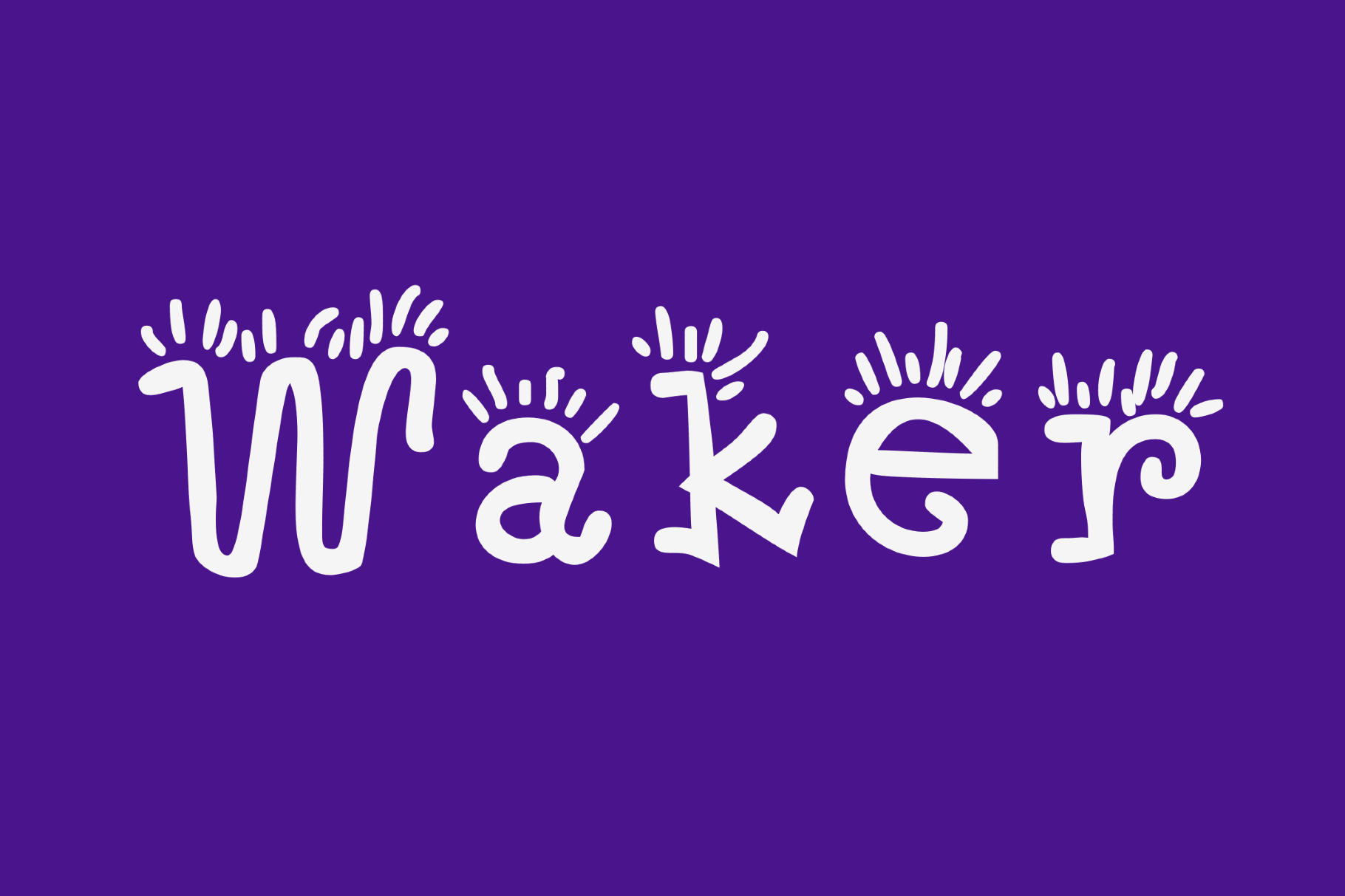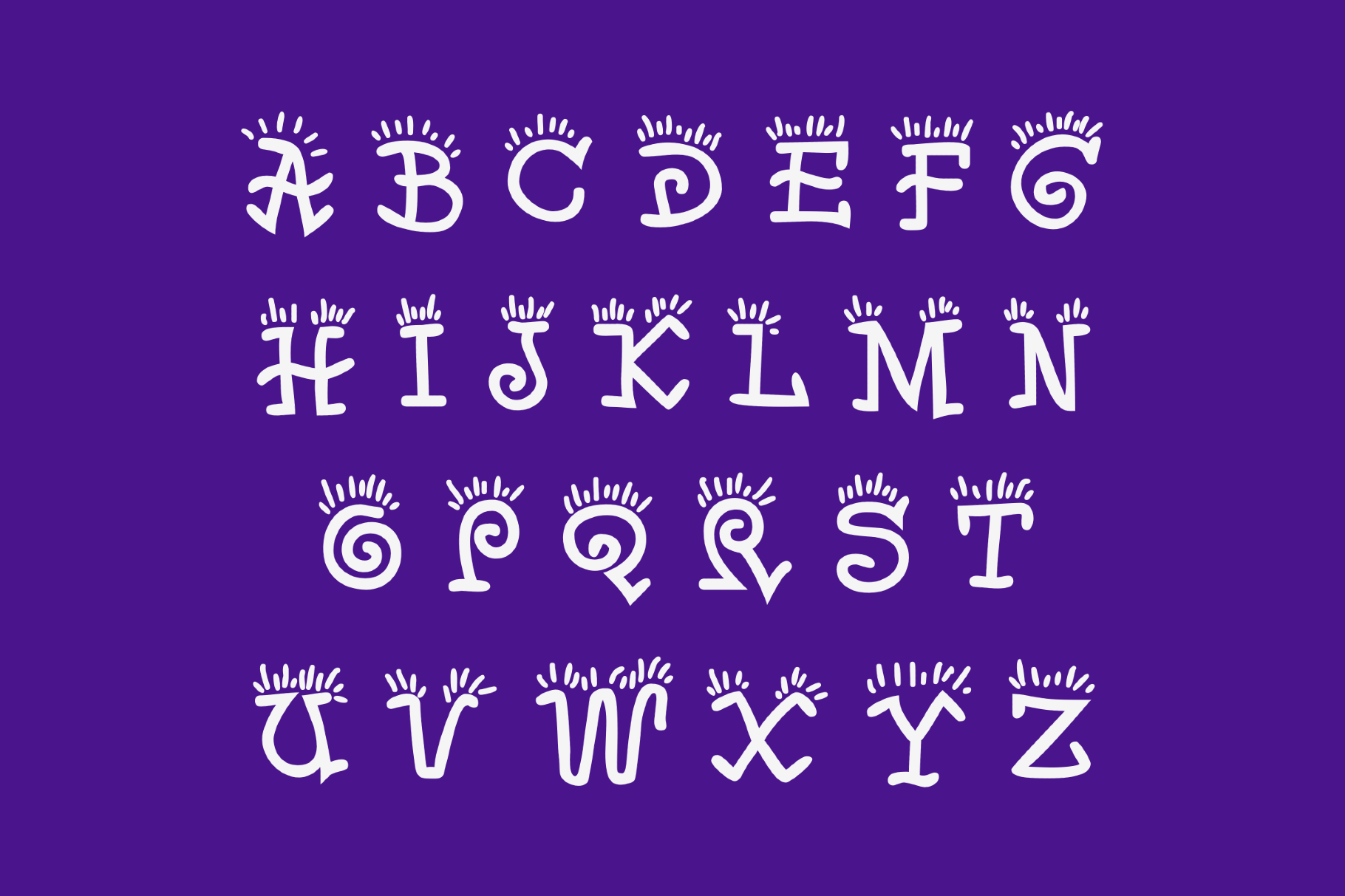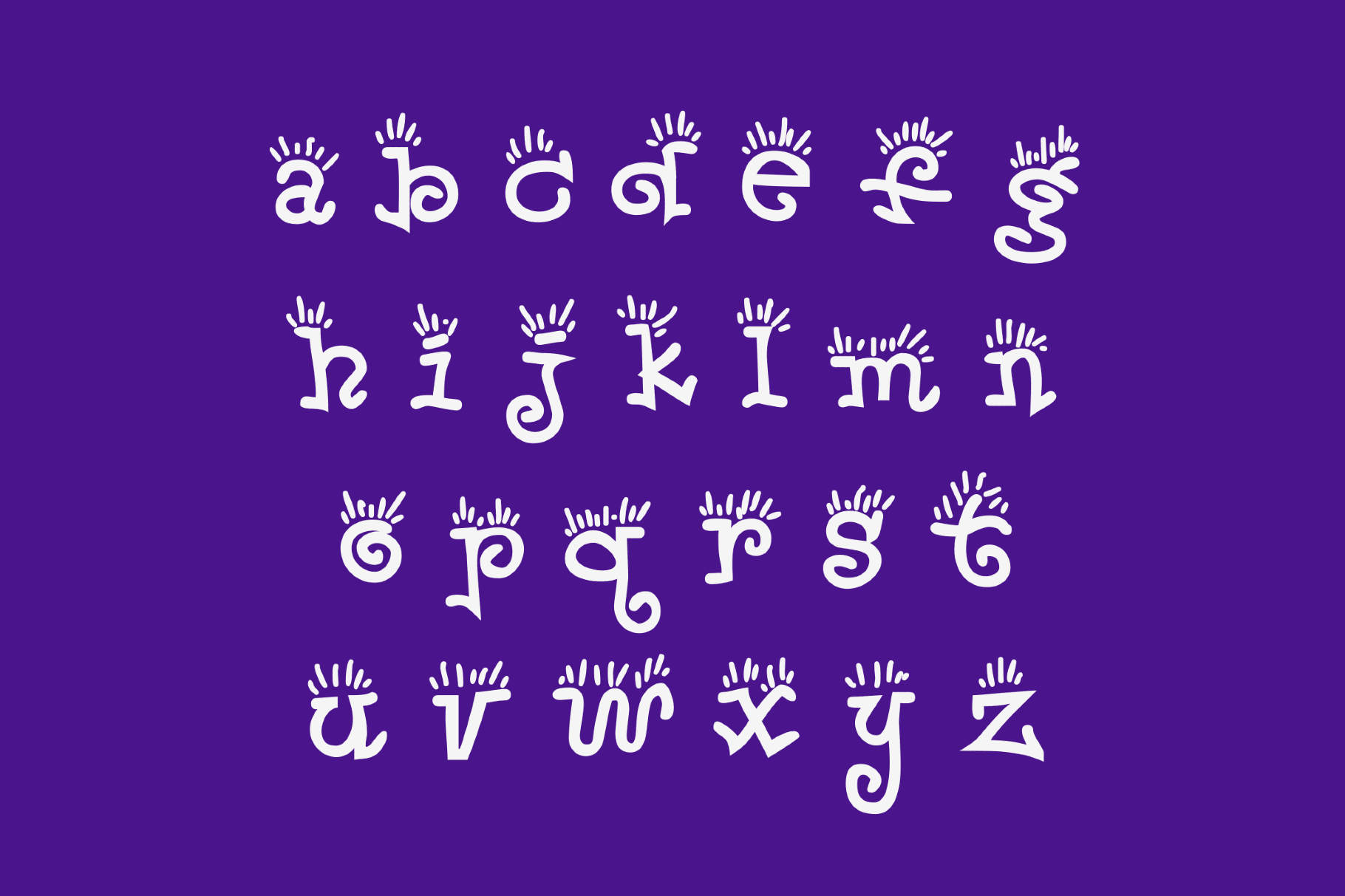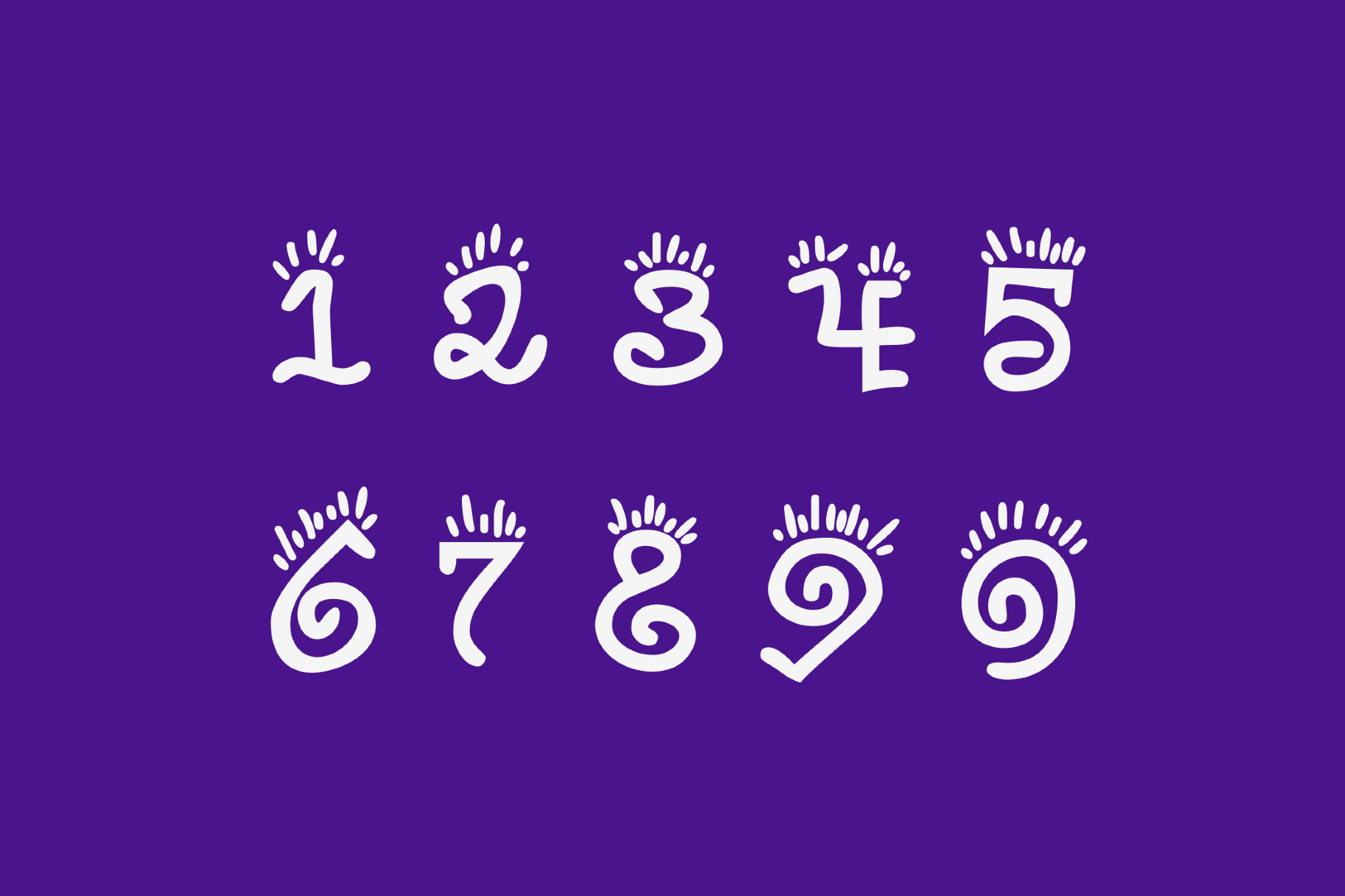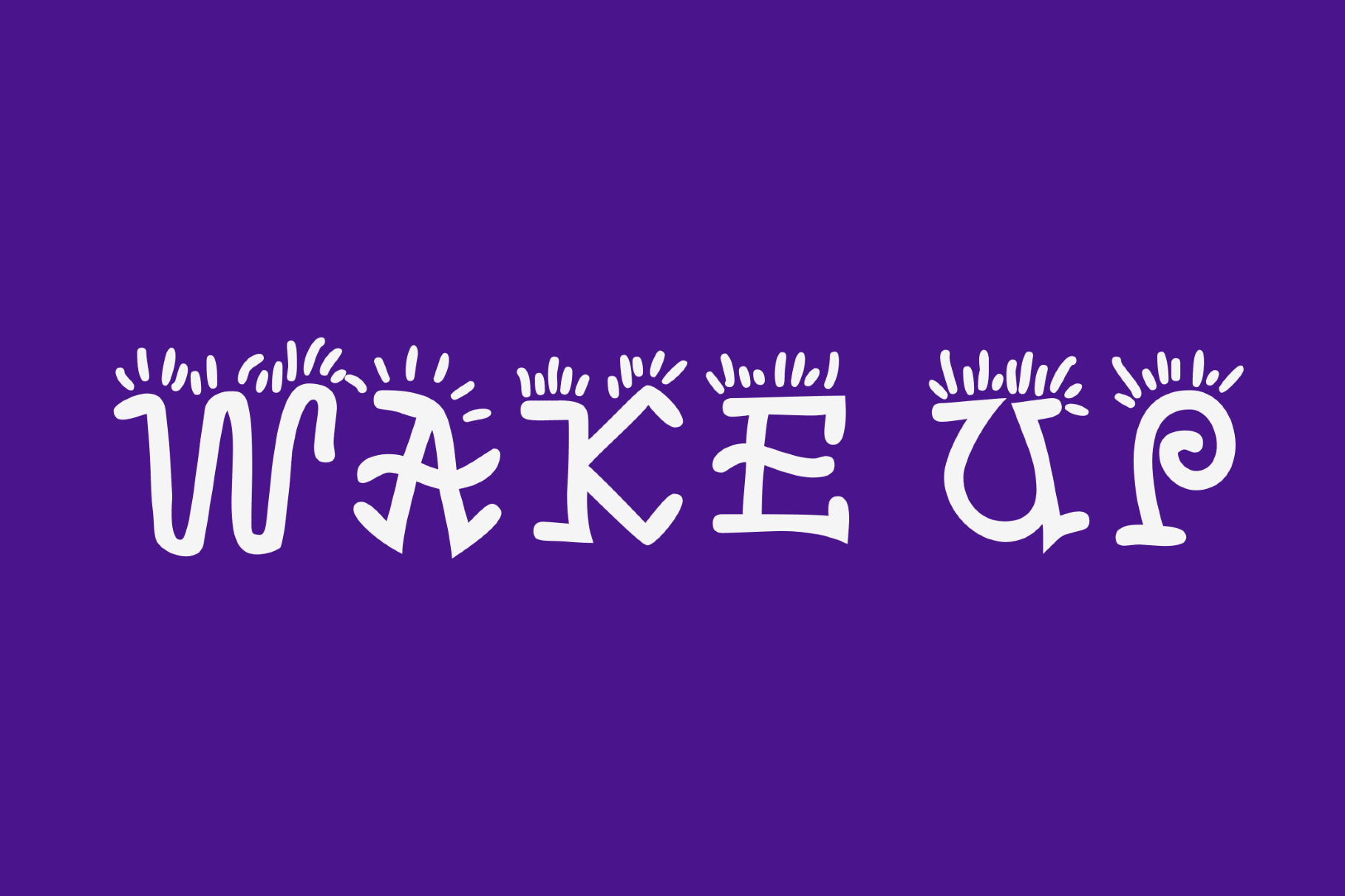
Waker - Funny Doodle Font
Waker is a doodle font with lanky letterforms and eyelash-like bursts perched above the strokes. It echoes classroom mural lettering, children’s TV bumpers and hand-inked activity books from the 1960s. It is a lively pick for toy packaging, nursery posters, birthday invites, learning apps, sticker sheets, playful logos and cheerful branding.